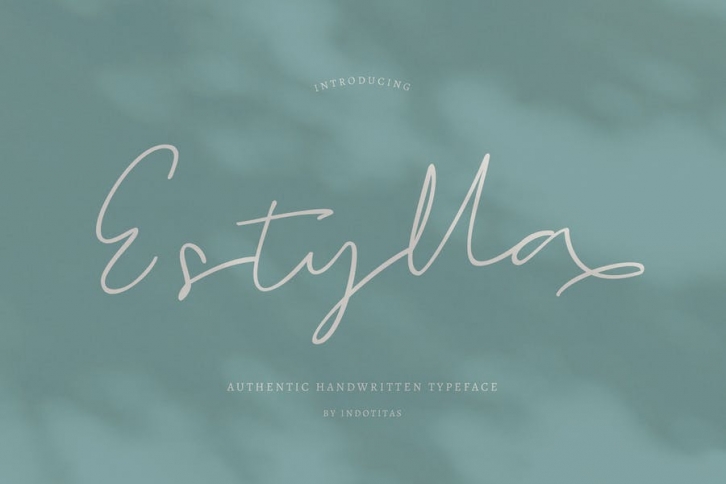
Estylla created with authentic handwritten characters. This authentic handwritten typeface was PUA encoded. Estylla works perfectly for logos, display, product branding, wedding invitation card, stationary, packaging, clothing, flyer, apparel, magazines, brochures, label, posters, badges, etc.
Estylla comes with 149 glyphs and 40 alternate characters contain with opentype features. This awesome font comes with 12 standard ligatures.
FEATURES :
• Basic Latin A-Z and a-z
• Symbols
• Alternate Character
• Opentype Feature
• PUA Encoded